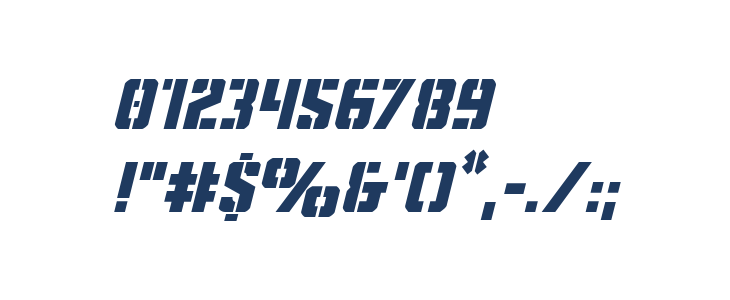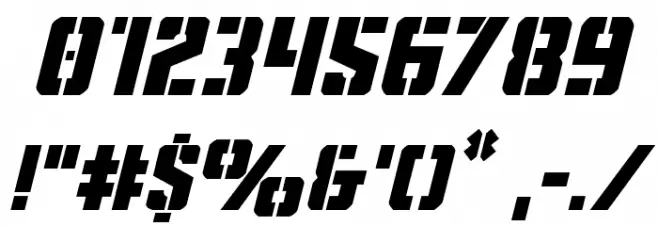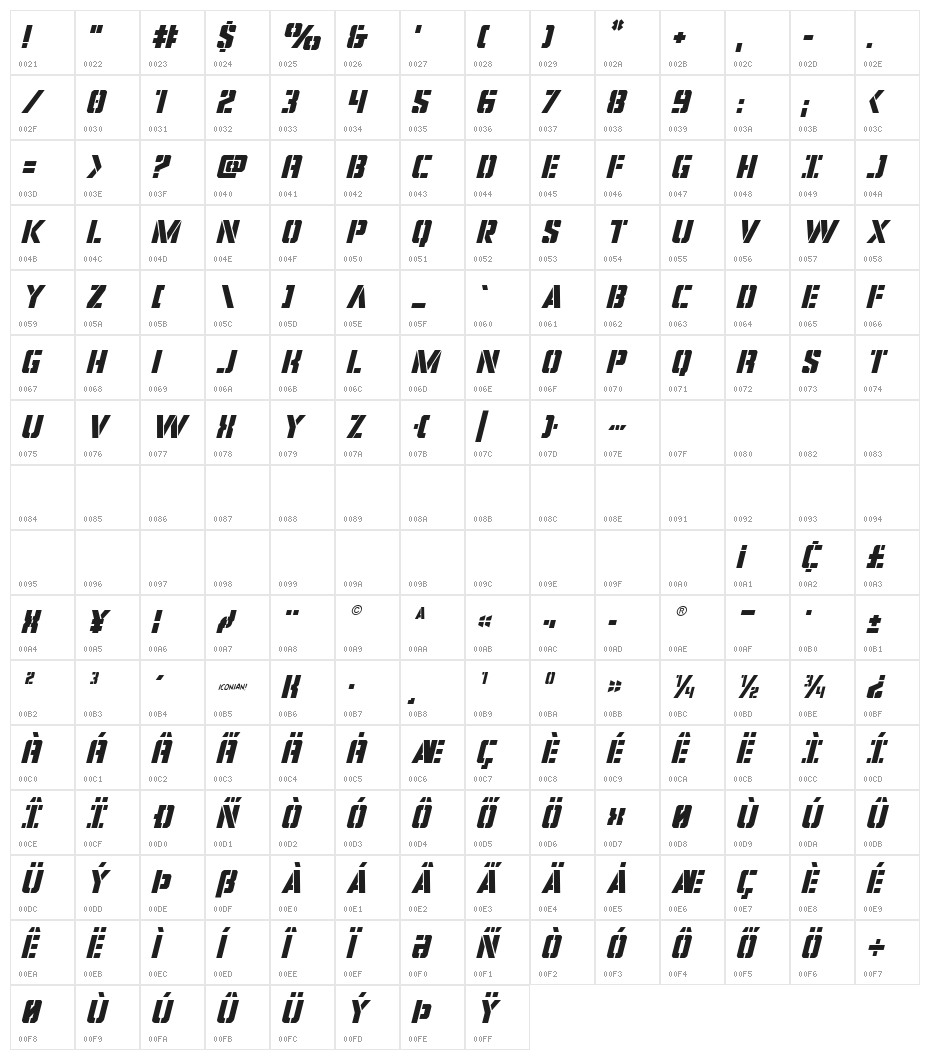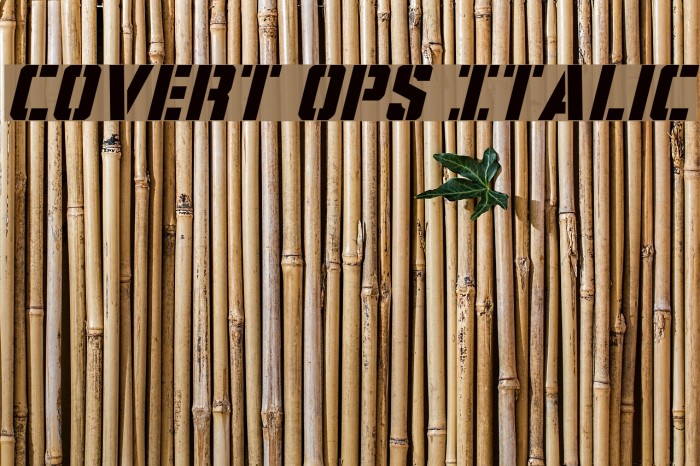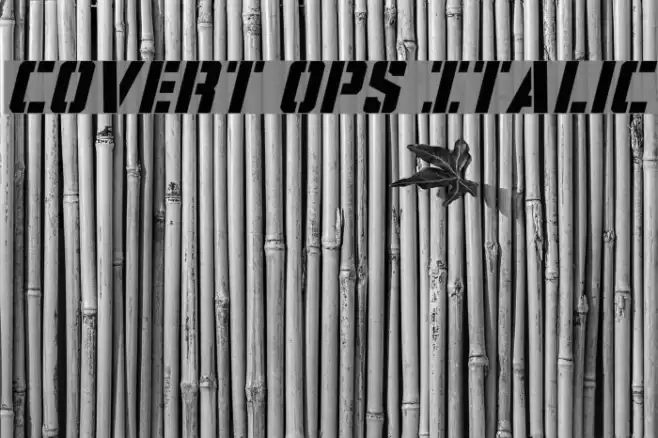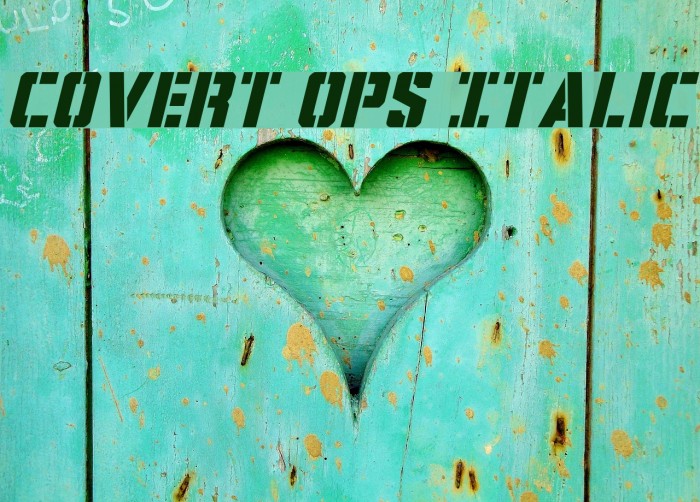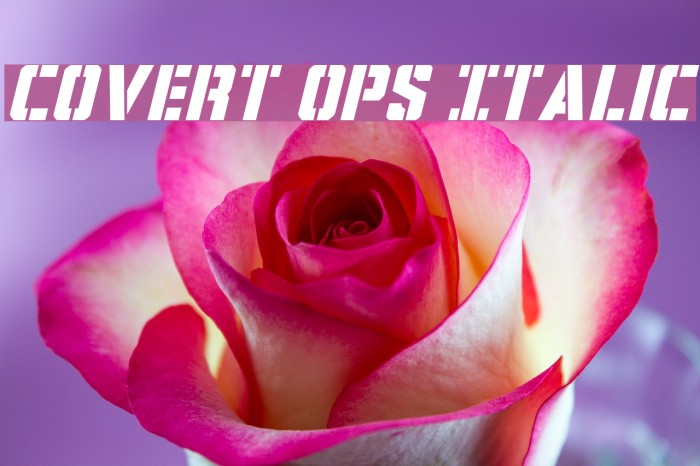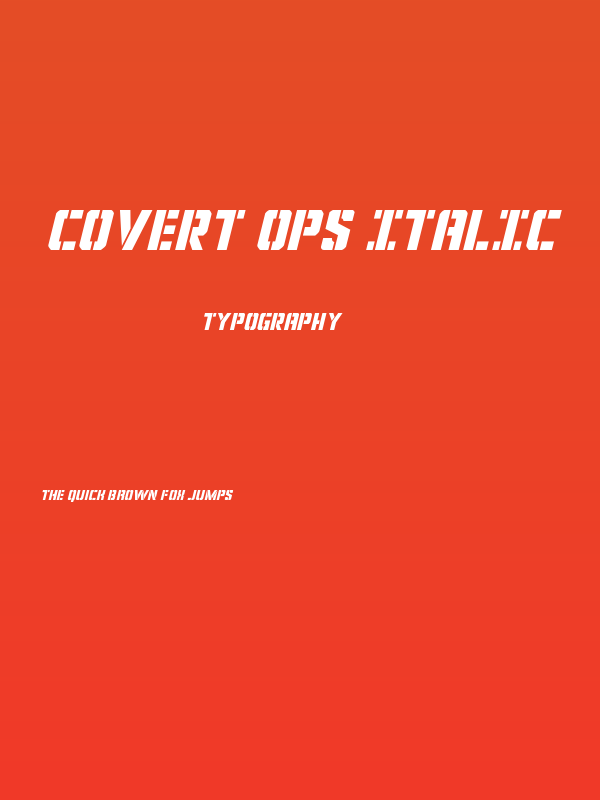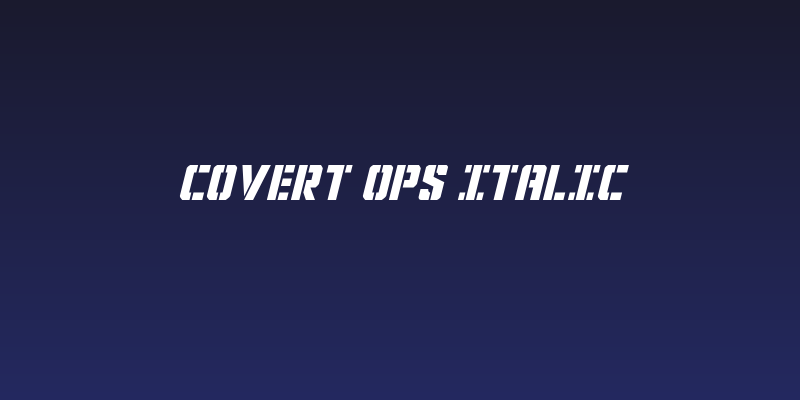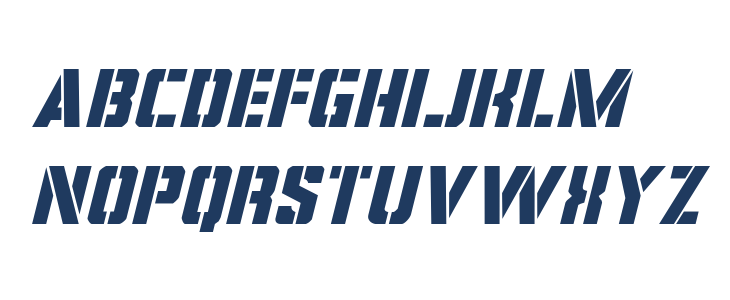
Covert Ops Italic Font
Covert Ops Italic Description
This font features a bold and dynamic design with a strong italic slant, giving it a sense of motion and urgency. The characters are blocky and angular, with sharp edges and a futuristic appearance. The uppercase and lowercase letters maintain a consistent style, while the numbers and special characters complement the overall aesthetic. The font's boldness and unique style make it stand out, suitable for projects that require a modern and impactful look.